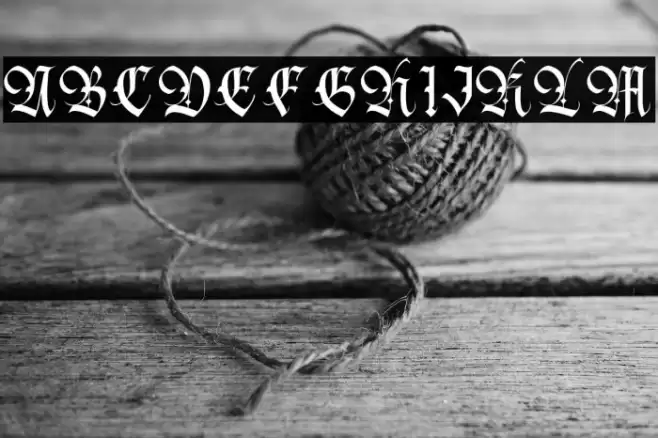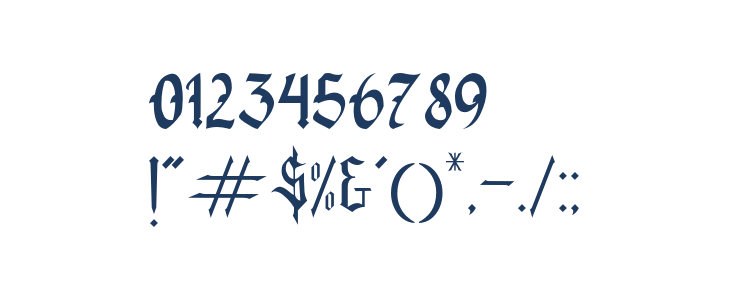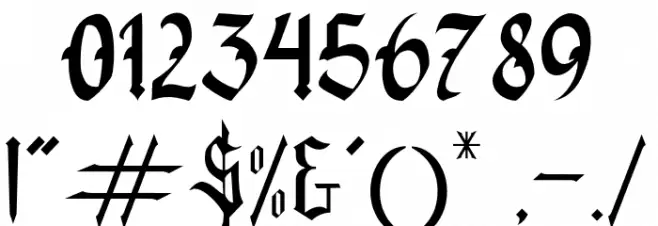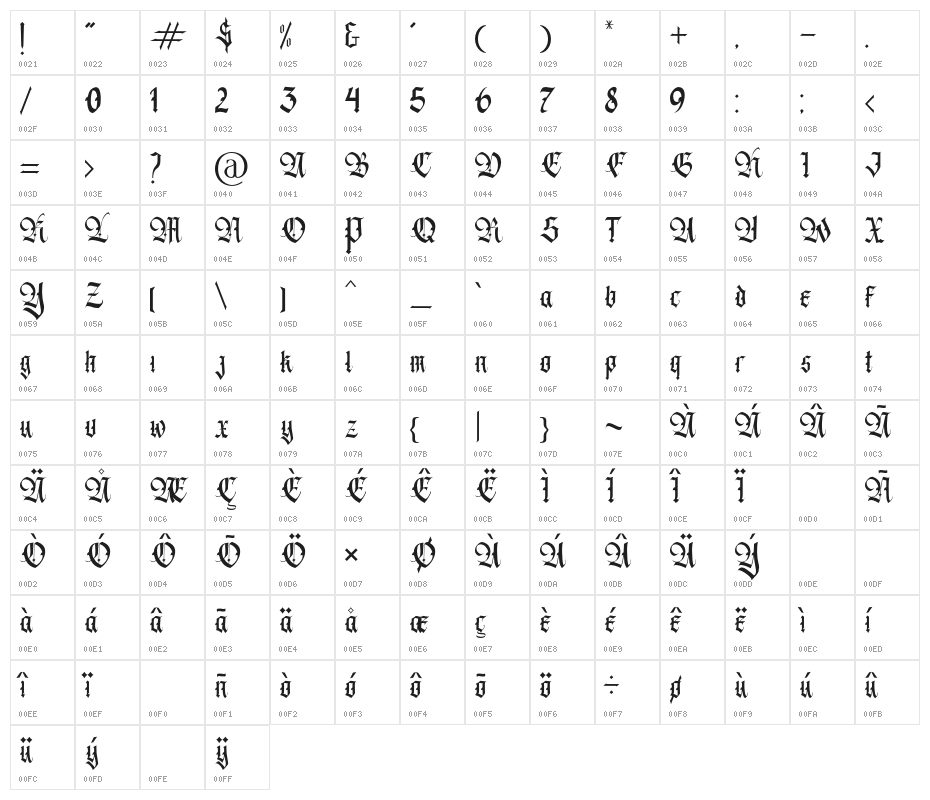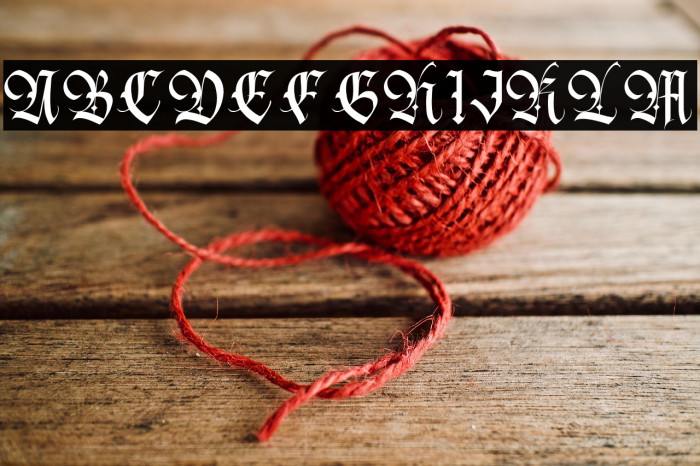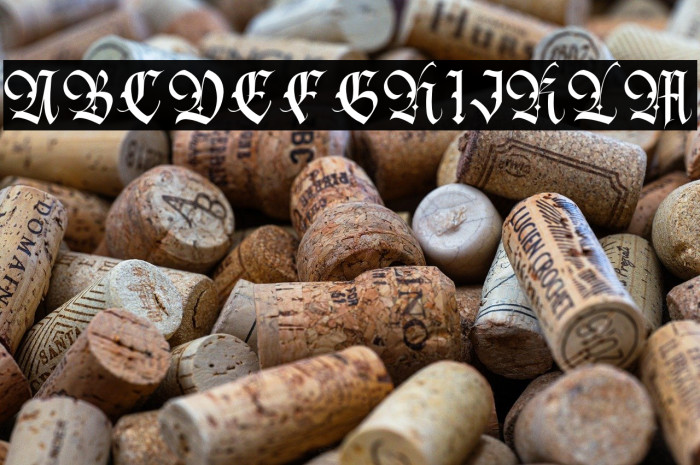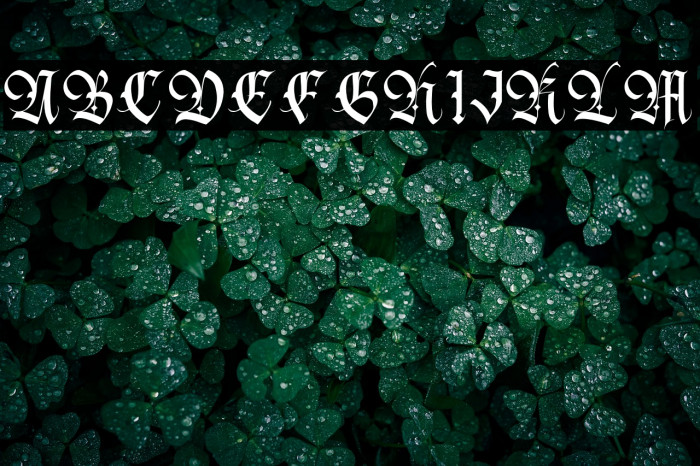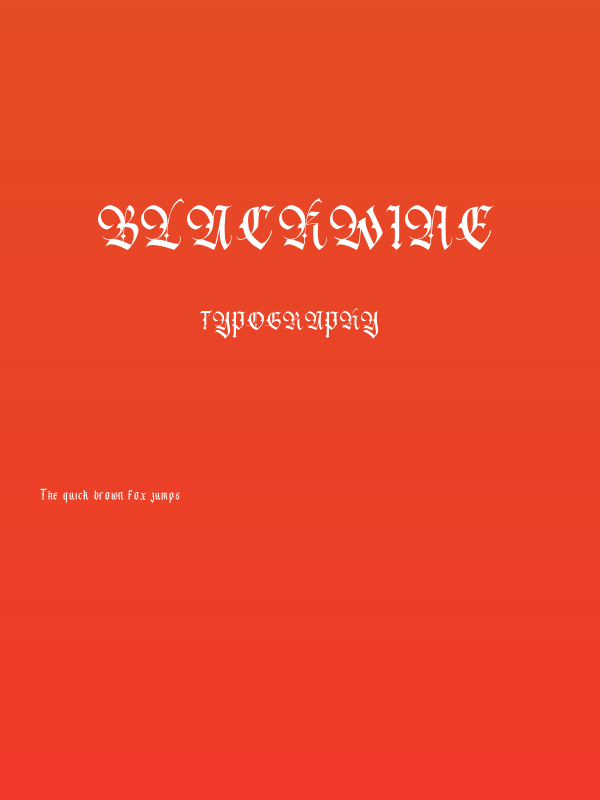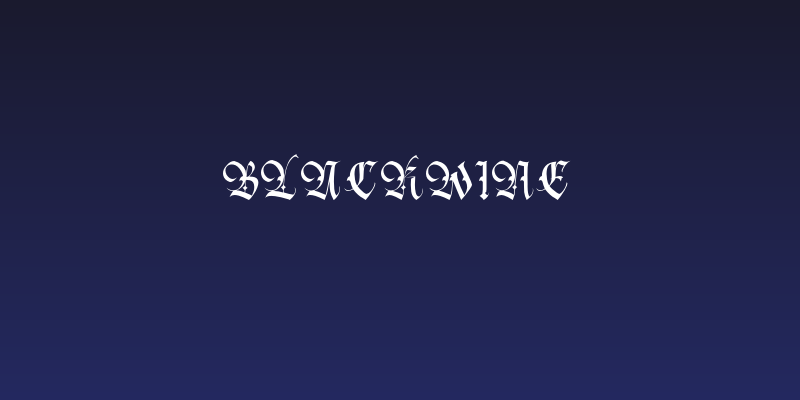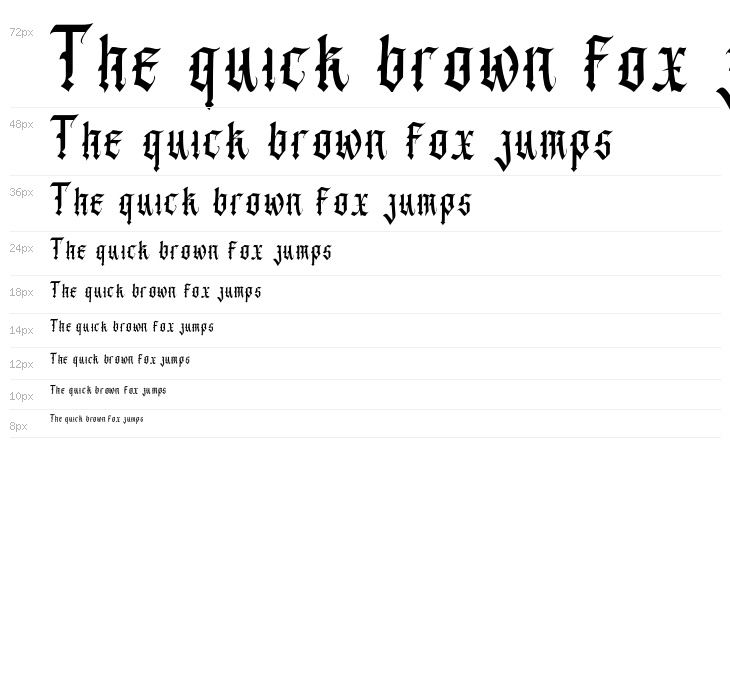
BlackWine Font
BlackWine Description
This font is a striking example of Blackletter style, characterized by its intricate and ornate letterforms. The uppercase letters exhibit sharp, angular lines with dramatic flourishes, while the lowercase letters maintain a consistent gothic aesthetic. The numerals are bold and distinctive, echoing the same medieval influence. Special characters are equally elaborate, adding to the font's overall decorative appeal. The font's high contrast between thick and thin strokes enhances its dramatic and historical feel, making it ideal for projects that require a touch of elegance and tradition.
A bold Blackletter font with intricate, gothic-inspired letterforms from Uncategorized fonts.
- Font: BlackWine
- Proposed Projects: Ideal for historical documents, wedding invitations, book covers, and branding that requires a classic or medieval touch.
- Overall Style: Vintage
- Use Case: Logos, Headlines, Decorative text